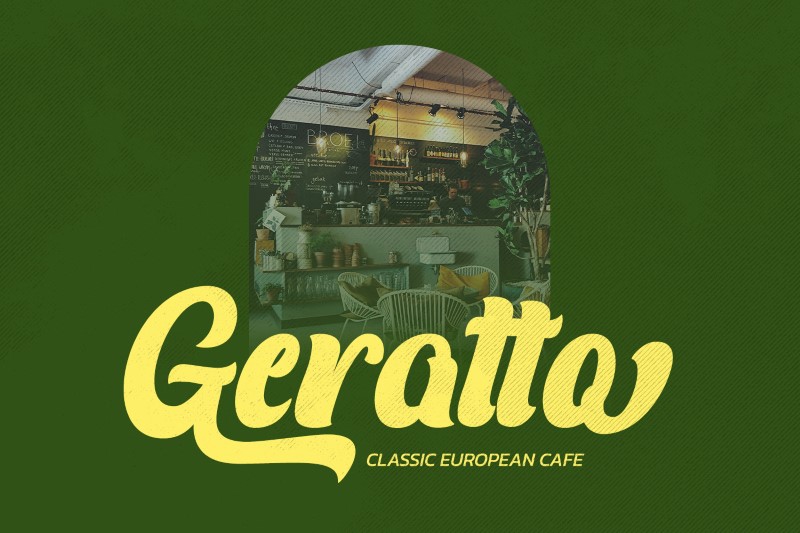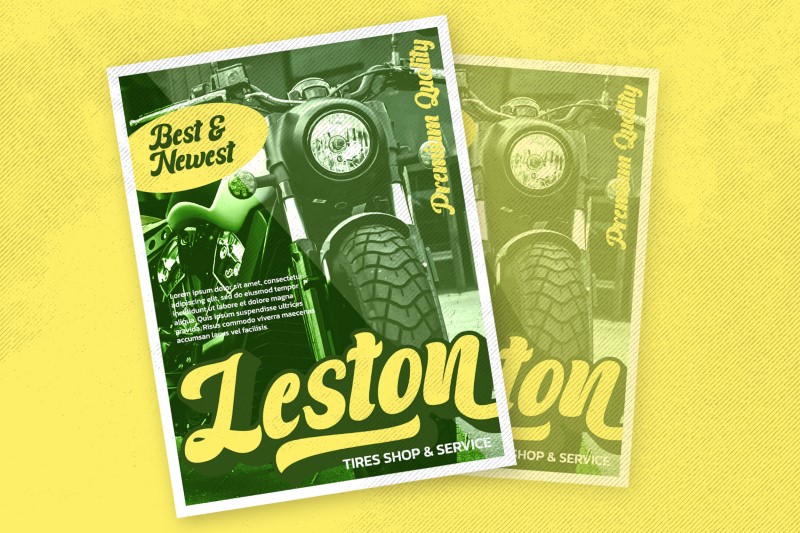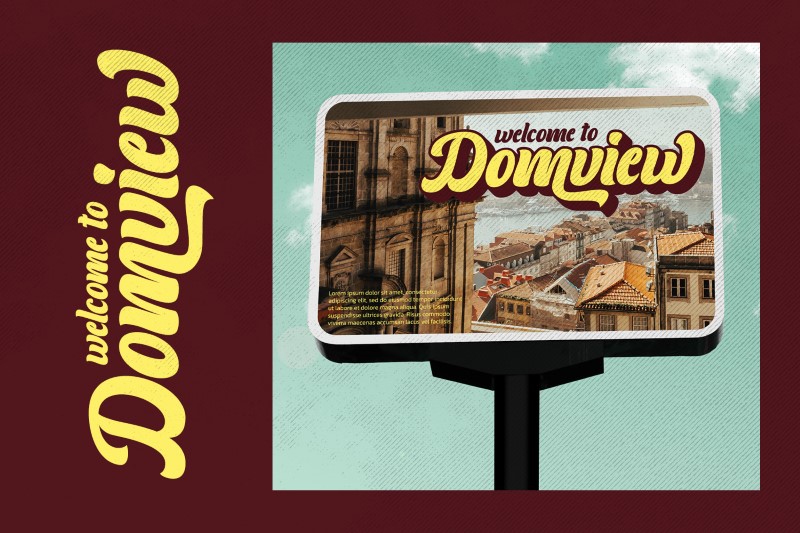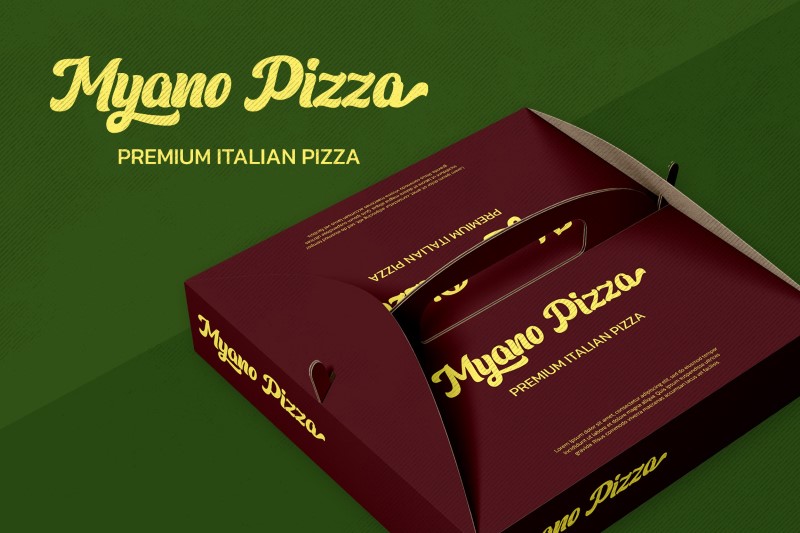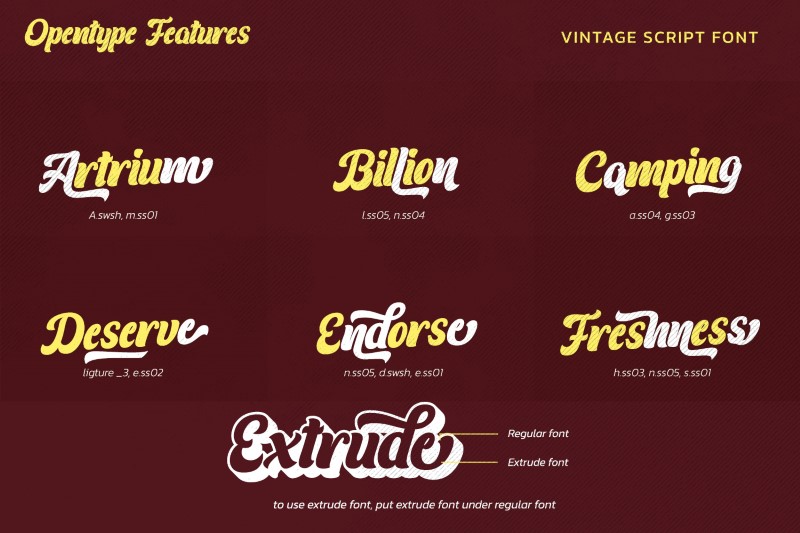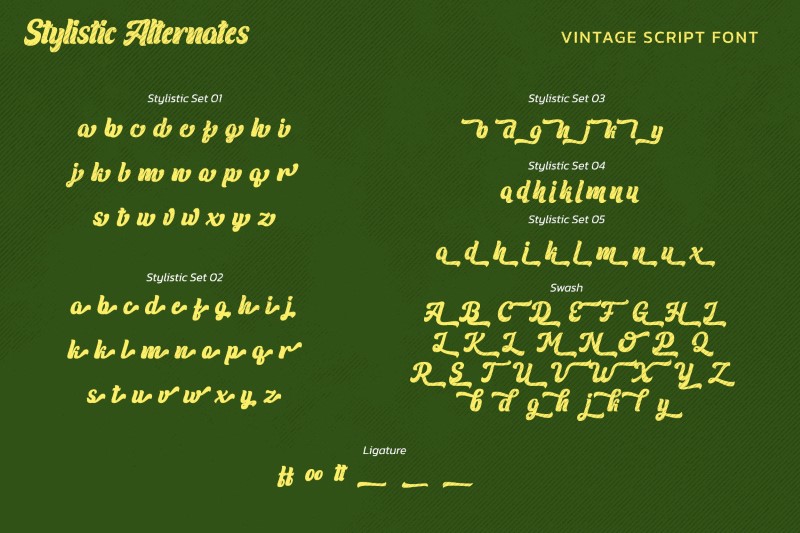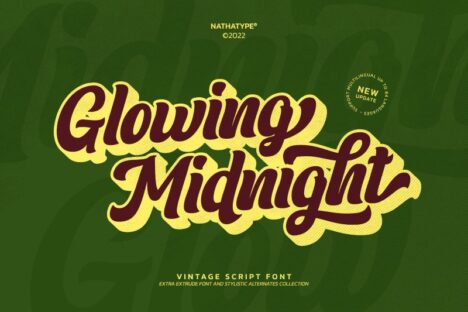
Glowing Midnight, a prominent-making design, is a retro script font to create a dramatic impression through the irregular letter proportions and letters. Apply the Glowing Midnight font, which is better in the extrude version, for bigger-sized texts to be highly legible. Enjoy the available features in this font.
- Stylistic Set
- Swashes
- Multilingual Supports
- Numerals and Punctuation
Glowing Midnight fits for any design projects, such as posters, logos, banners, book covers, headings, printed products, merchandise, social media, etc. Find out more ways to use this font by taking a look at the font preview. Hope you enjoy your experience in using our font. Thank you for purchasing our font and happy designing.